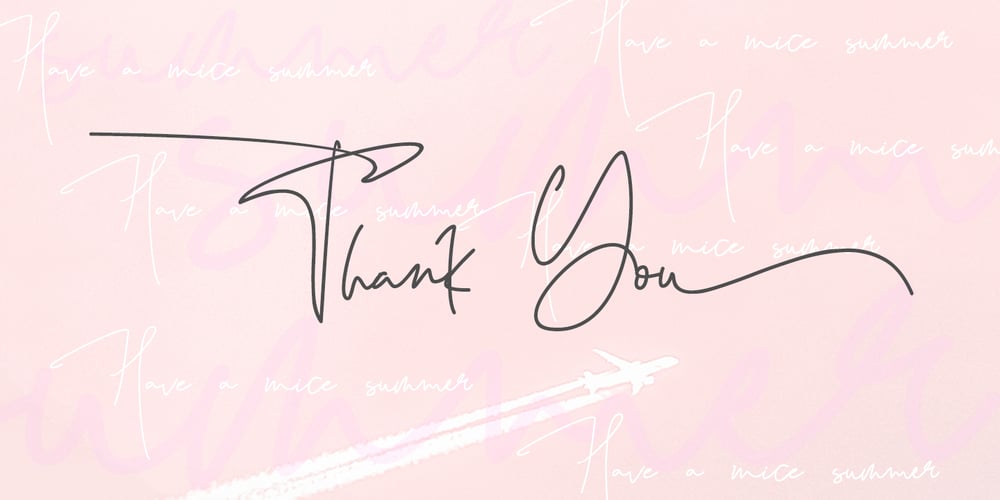
Black Pink Summer Font Family was designed by Thomas Aradea and published by Letterara. Black Pink Summer contains 2 styles and family package options. Introducing a new beautiful calligraphy font, Black Pink Summer, the monoline version of Black Pink Signature, created for summer. Black Pink Summer is perfect for beautiful and elegant logos, upscale packaging, wedding stationery, websites, and any other projects requiring a handwritten and luxurious touch. A wide range of swashes (a-z) and alternates (A-Z) are included so that you can give your logo or name a custom, hand-calligraphic look. Moreover, Black Pink Summer was created to look as close to a natural handwritten script as possible by including 109 ligatures. With built in Opentype features, this script comes to life as if you are writing it yourself.